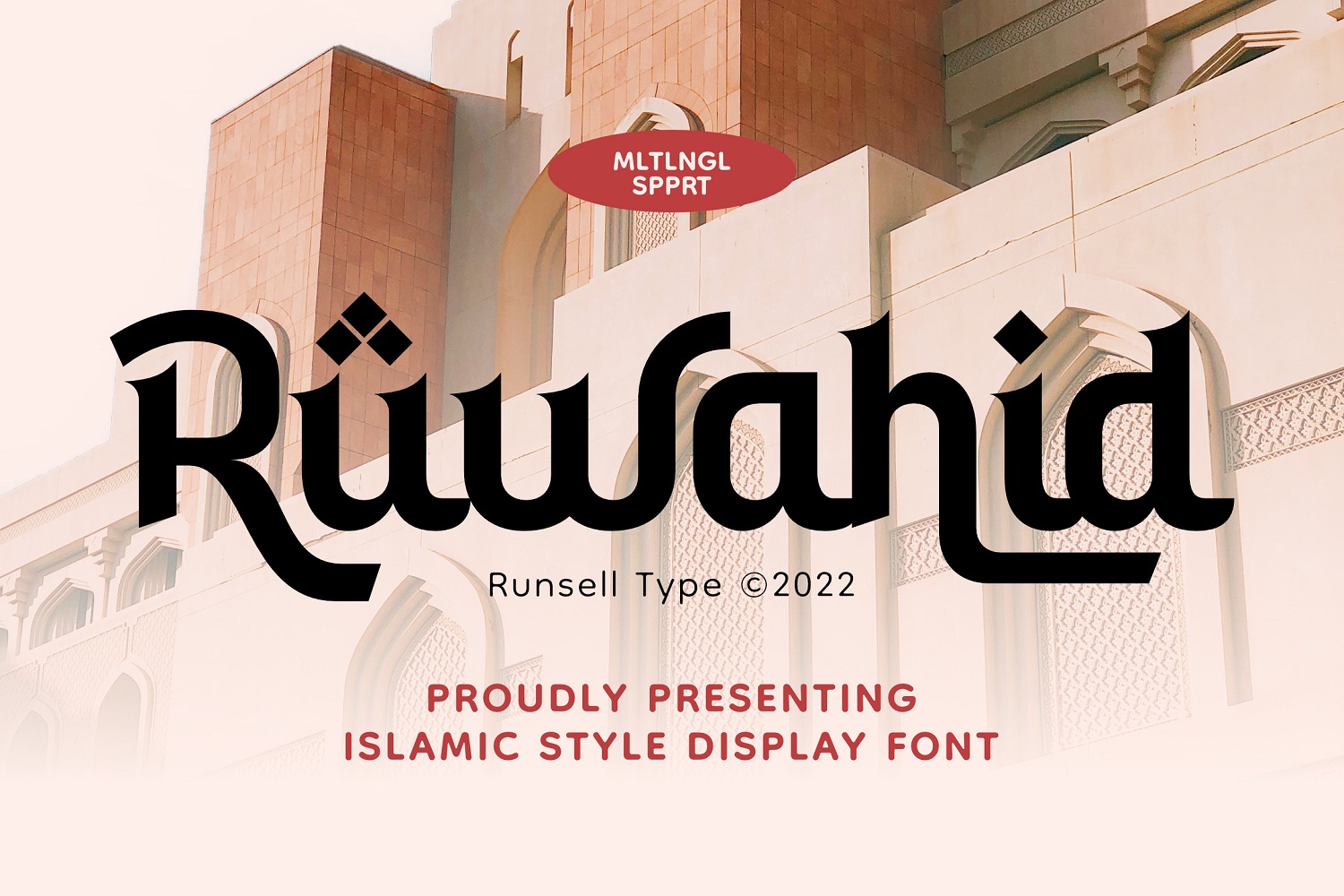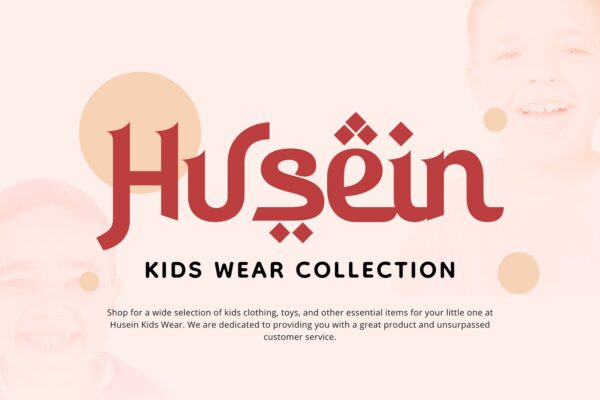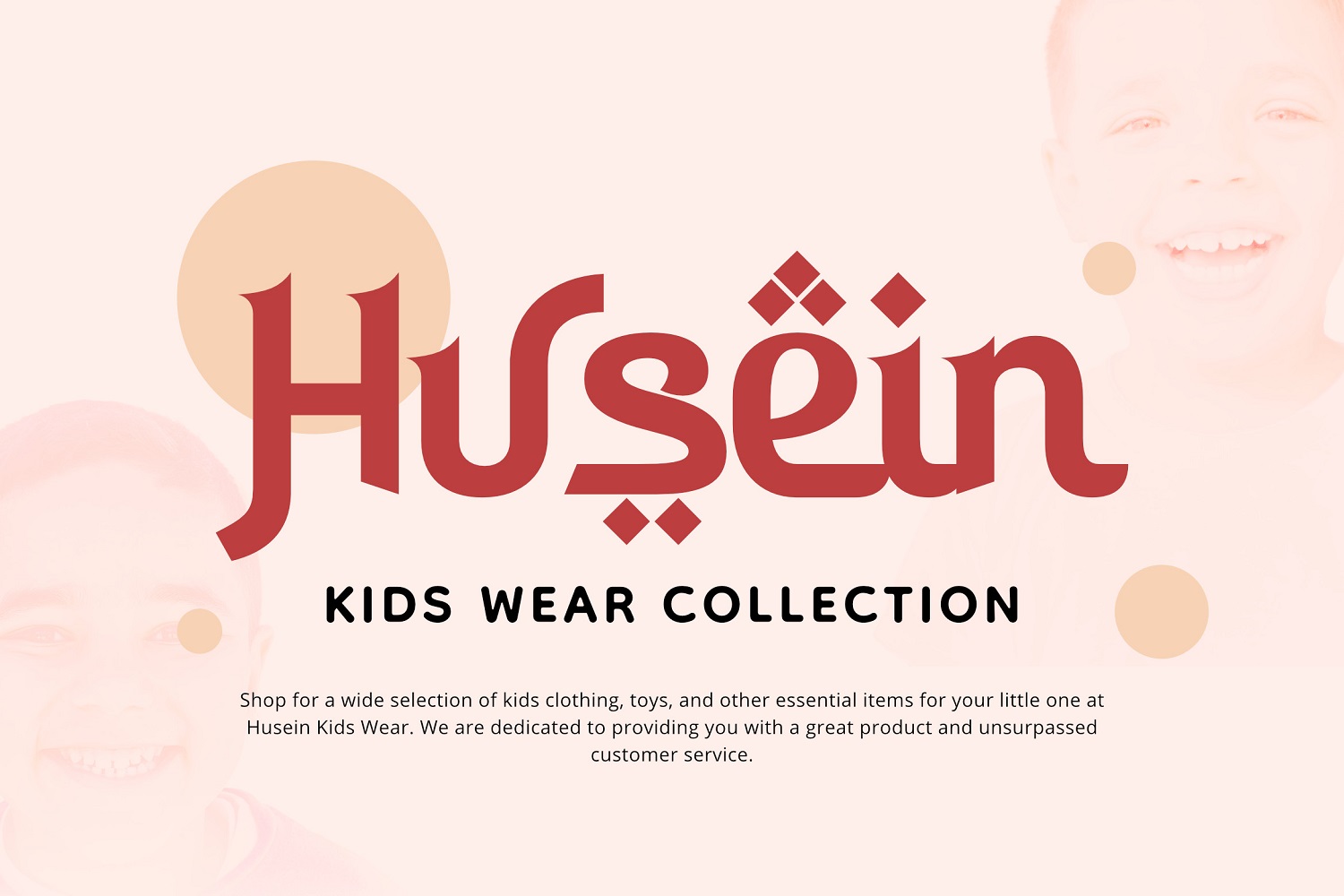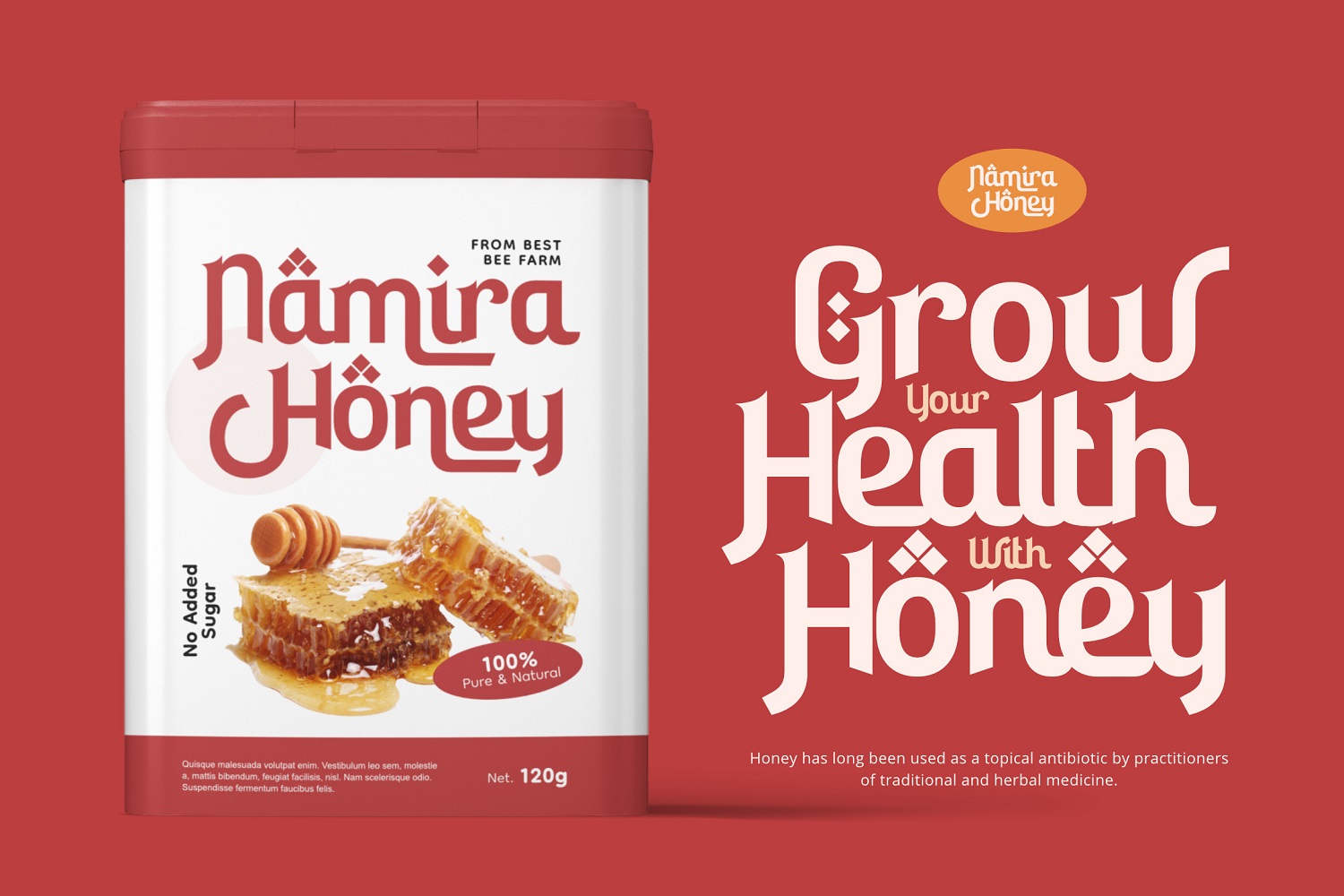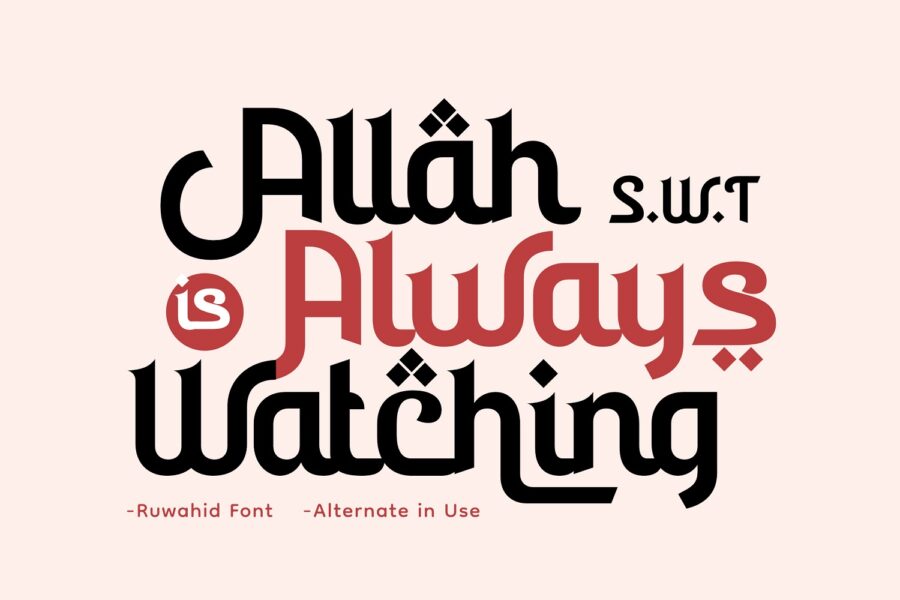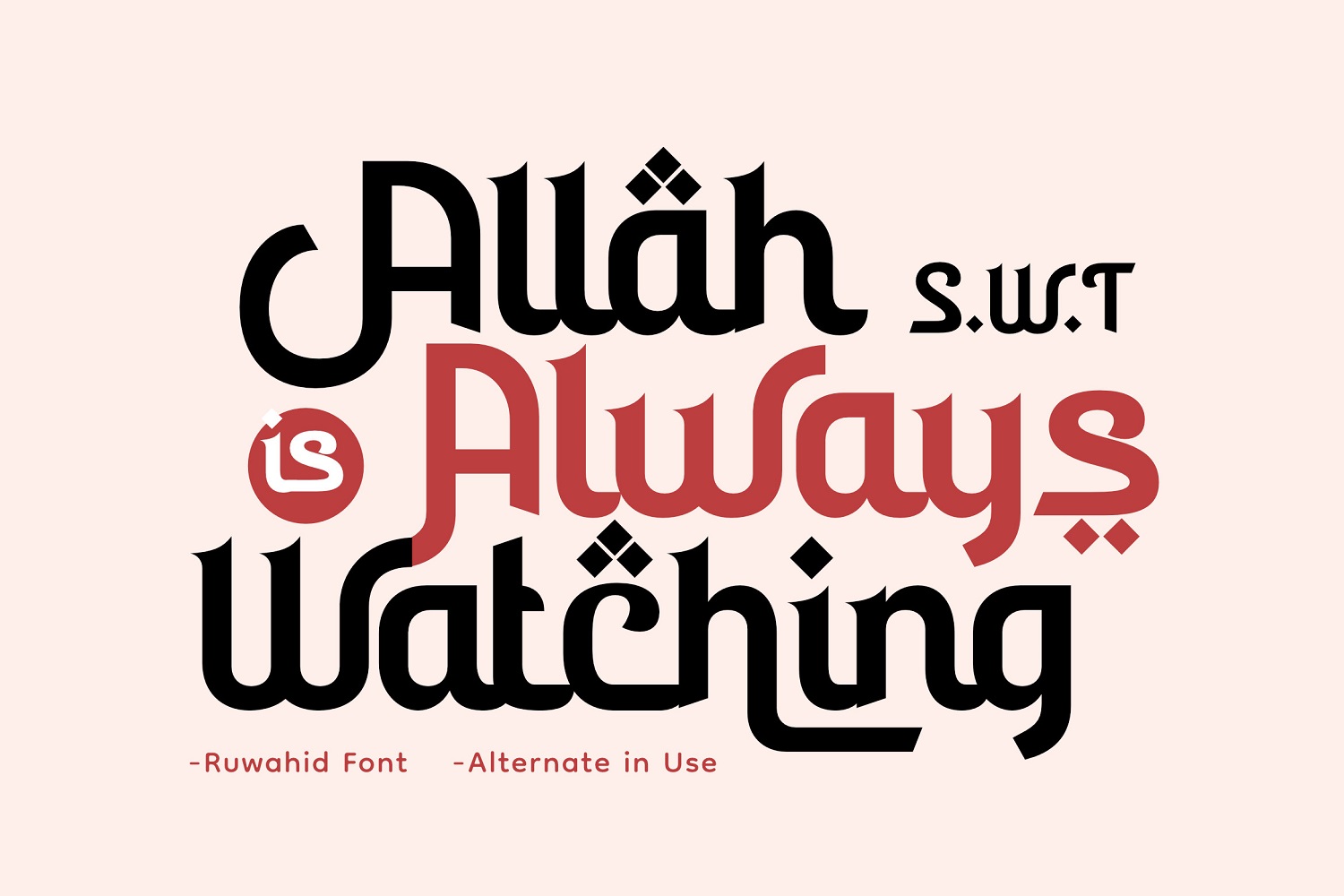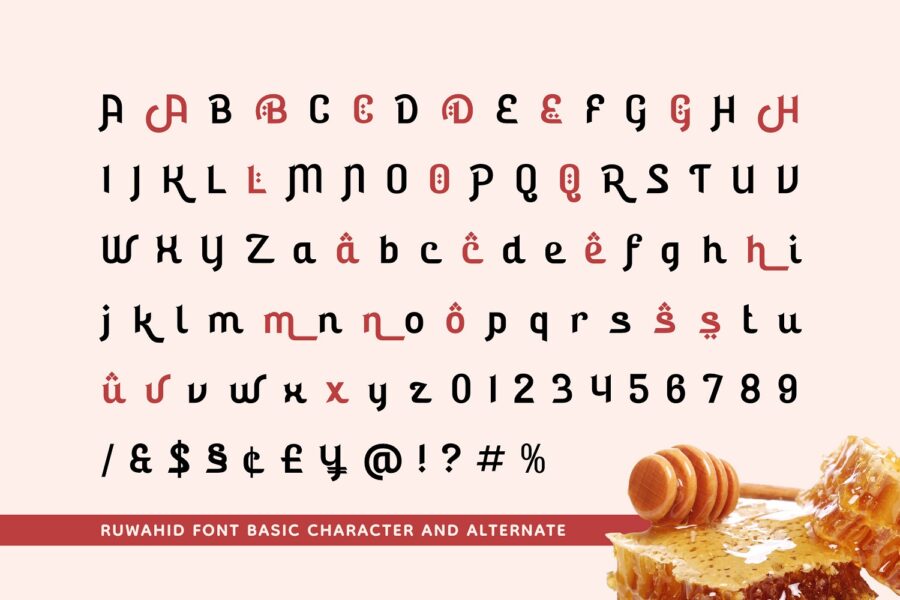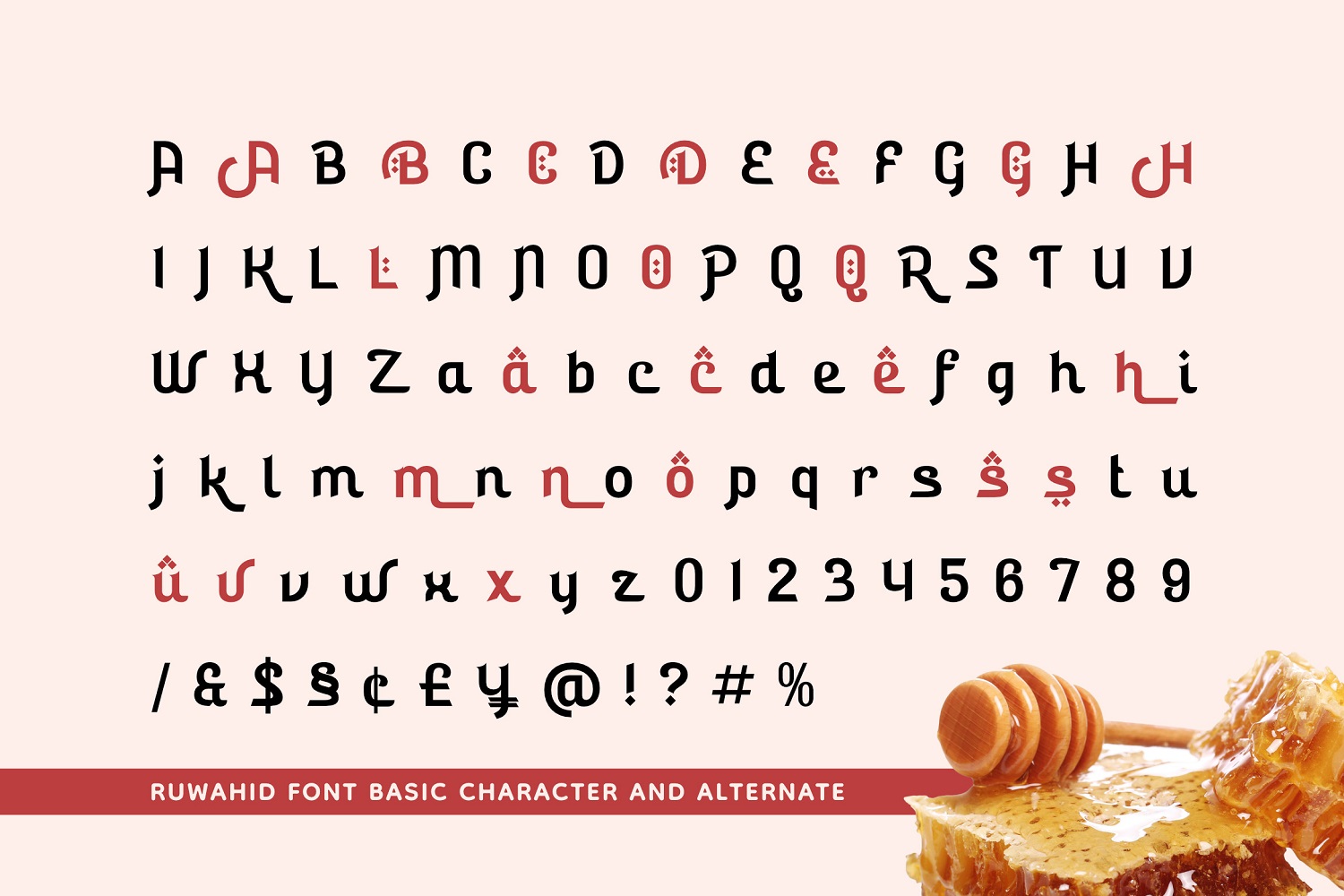
Ruwahid is an Islamic-style display font that blends traditional Arabic calligraphy influences with a bold contemporary style. Each character is designed with distinctive strokes and subtle Eastern touches, making it ideal for branding, packaging, and editorial projects that require a culturally expressive tone. Its unique letters, especially the alternate characters, add rich visual character while maintaining readability.
Perfect for headlines, product labels, Ramadan campaigns, and faith-inspired merchandise, Ruwahid offers multilingual support and stylized ligatures to elevate your visual storytelling. Whether you’re creating Islamic quotes, halal food packaging, or fashion branding, Ruwahid conveys sophistication and spiritual warmth in every letter.